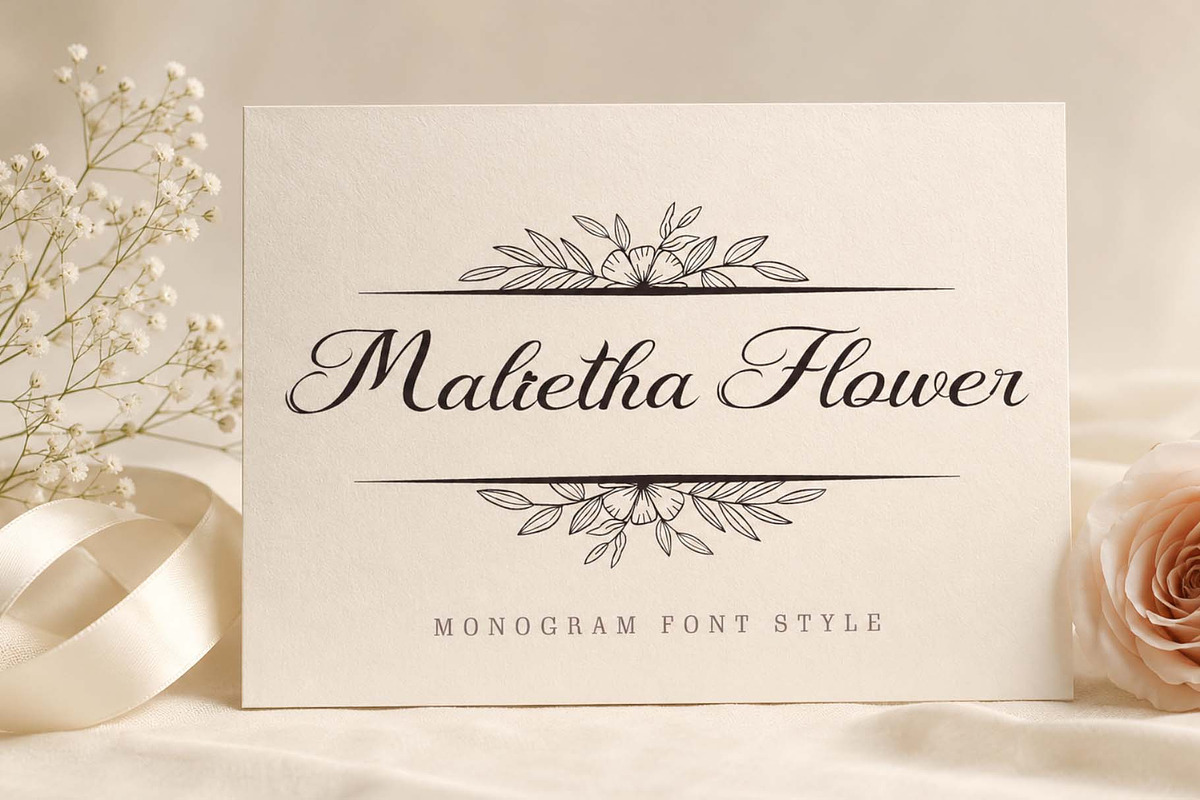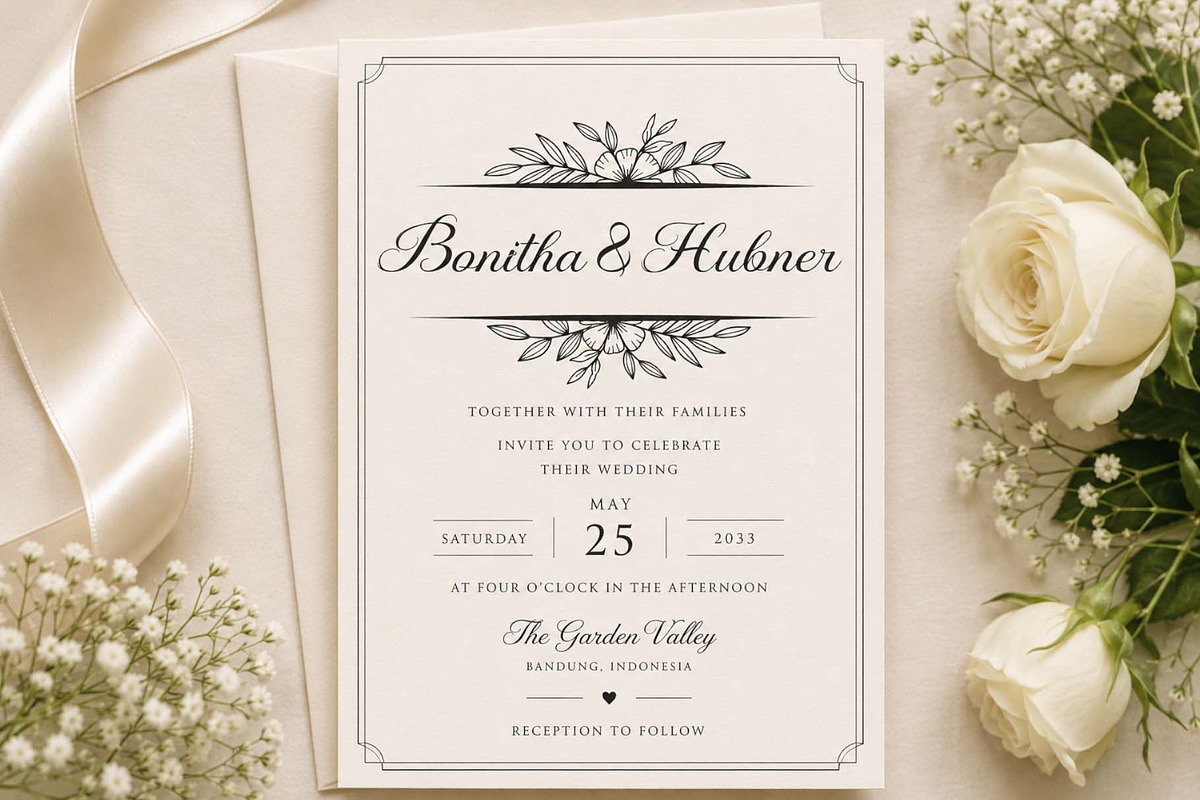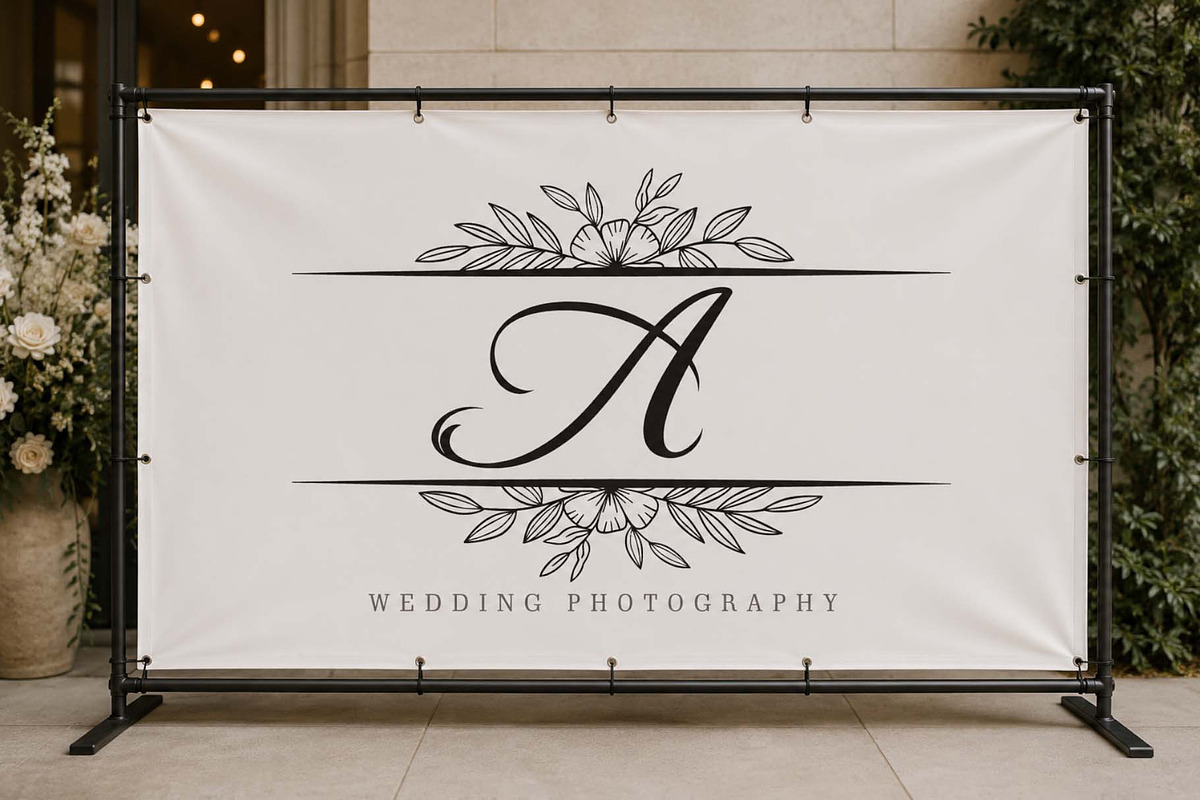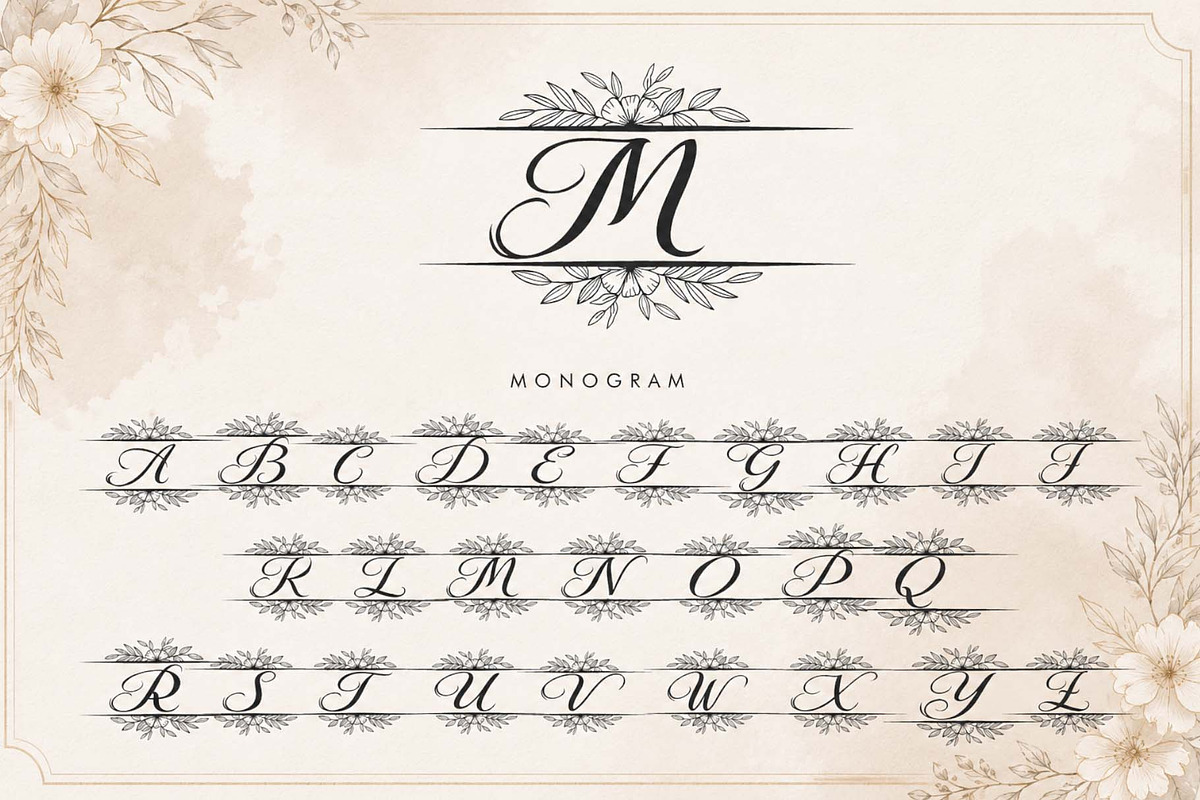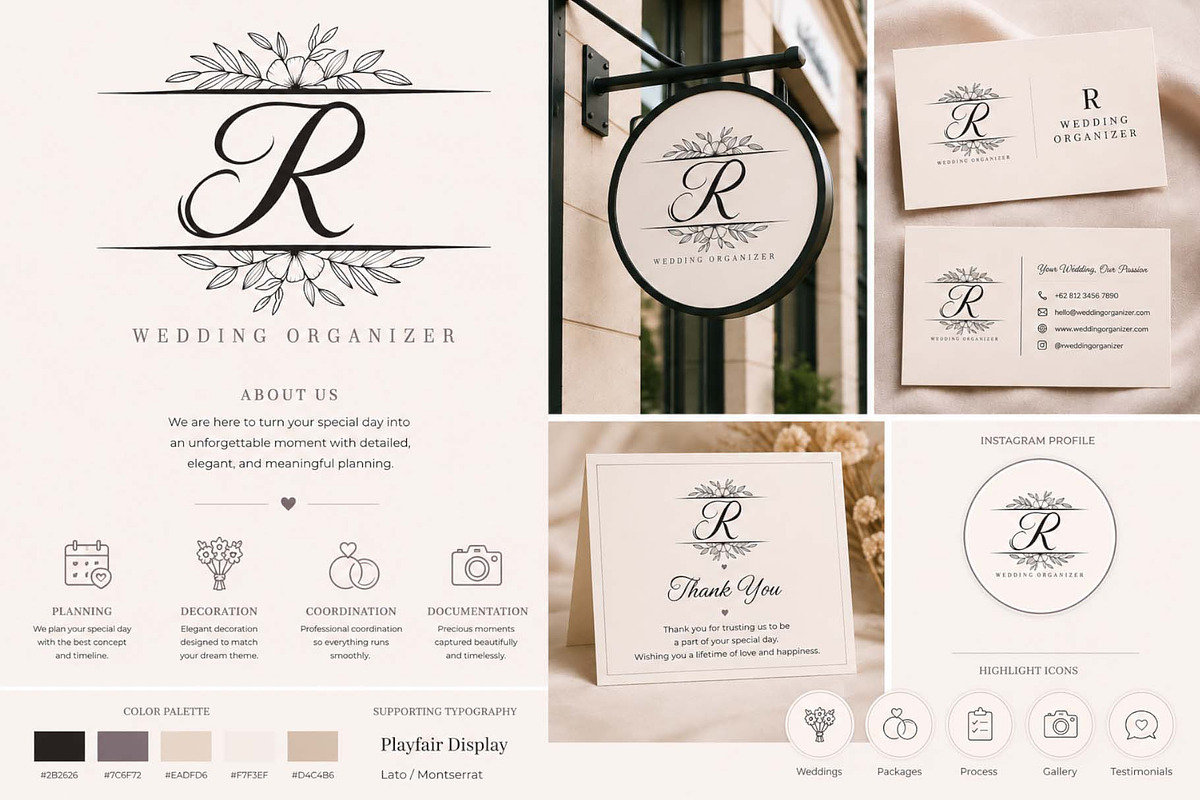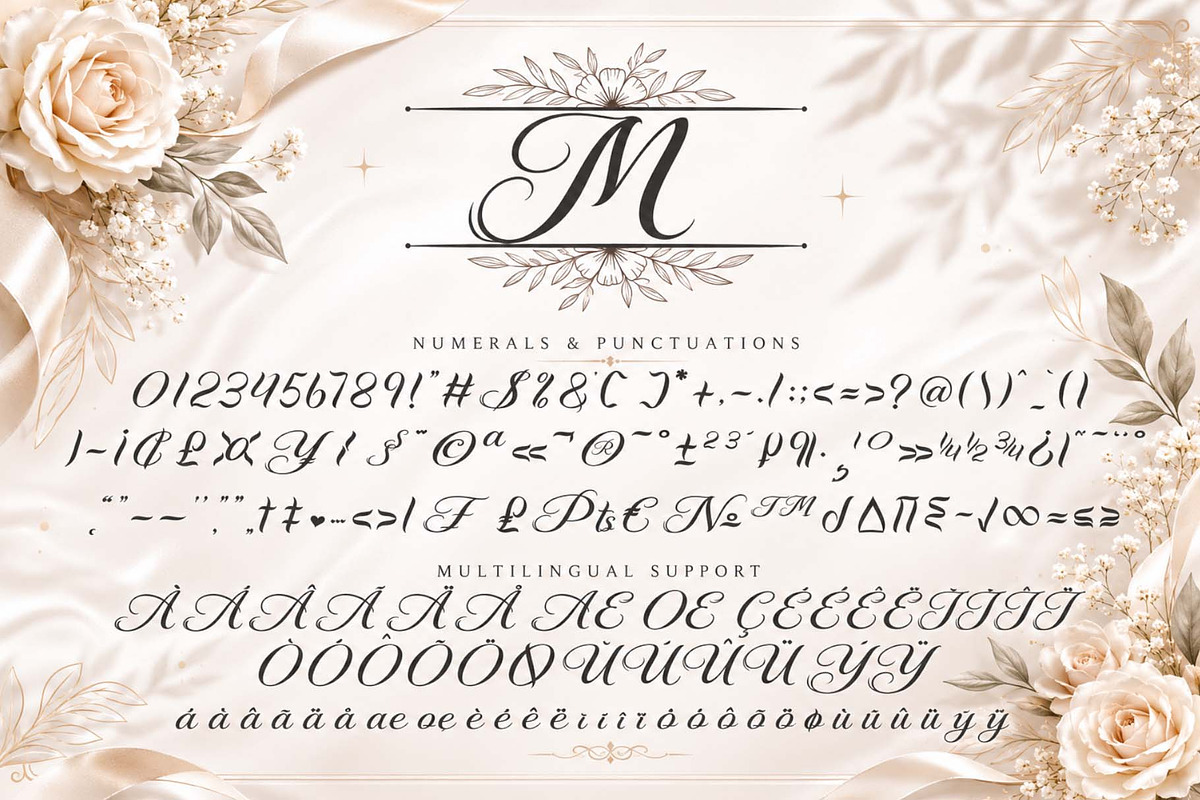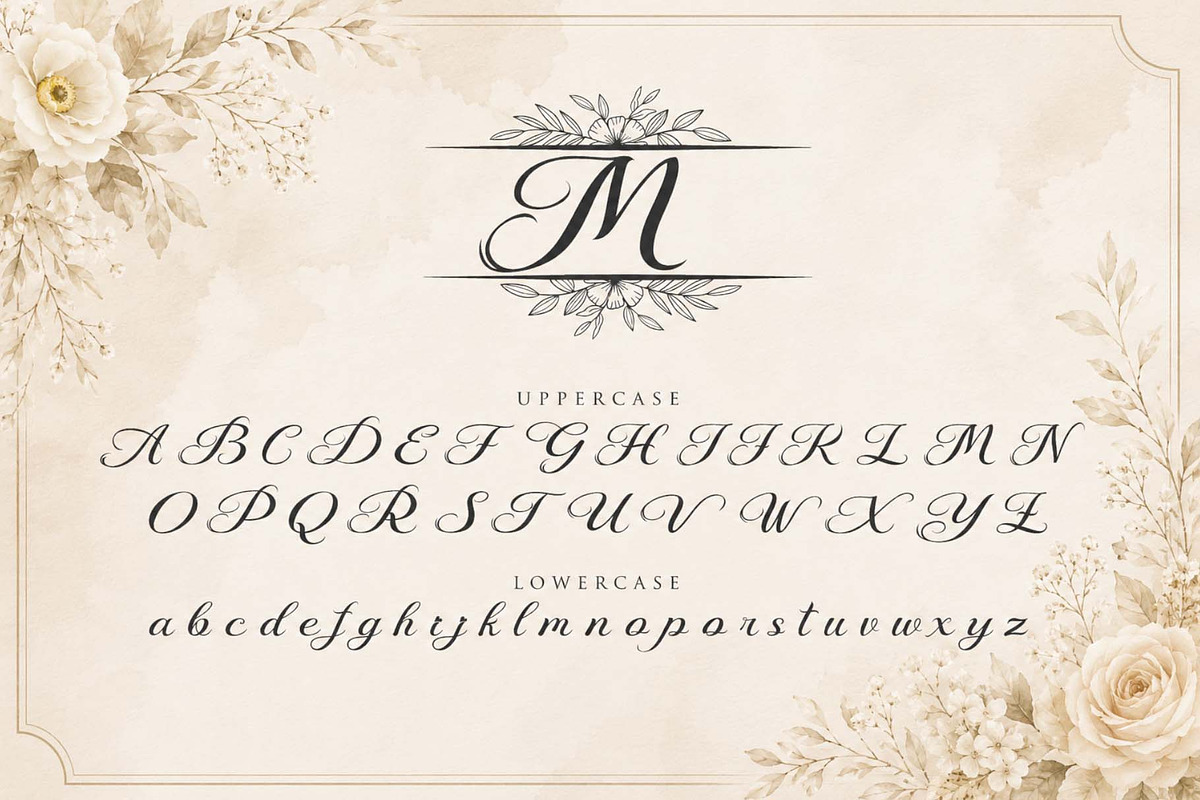
Malietha Flower Monogram
Malietha Flower Monogram is a graceful monogram font that combines elegant lettering with soft floral accents. Its timeless and romantic style makes it perfect for wedding invitations, luxury branding, logos, monograms, greeting cards, packaging, and other sophisticated design projects. Designed to add a touch of refinement and charm, this font brings beauty and elegance to every creation.